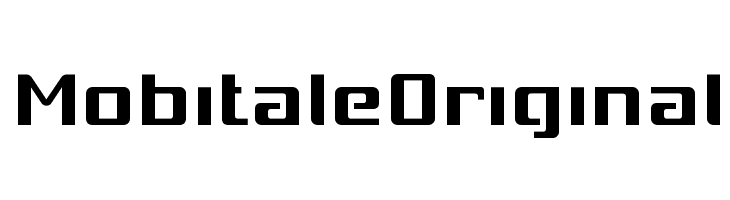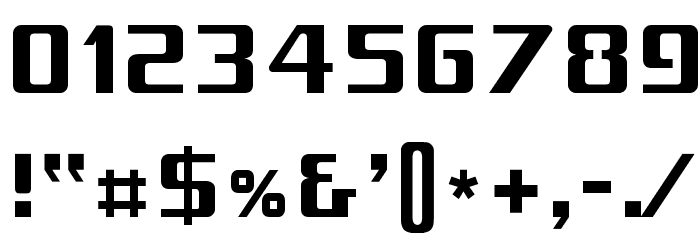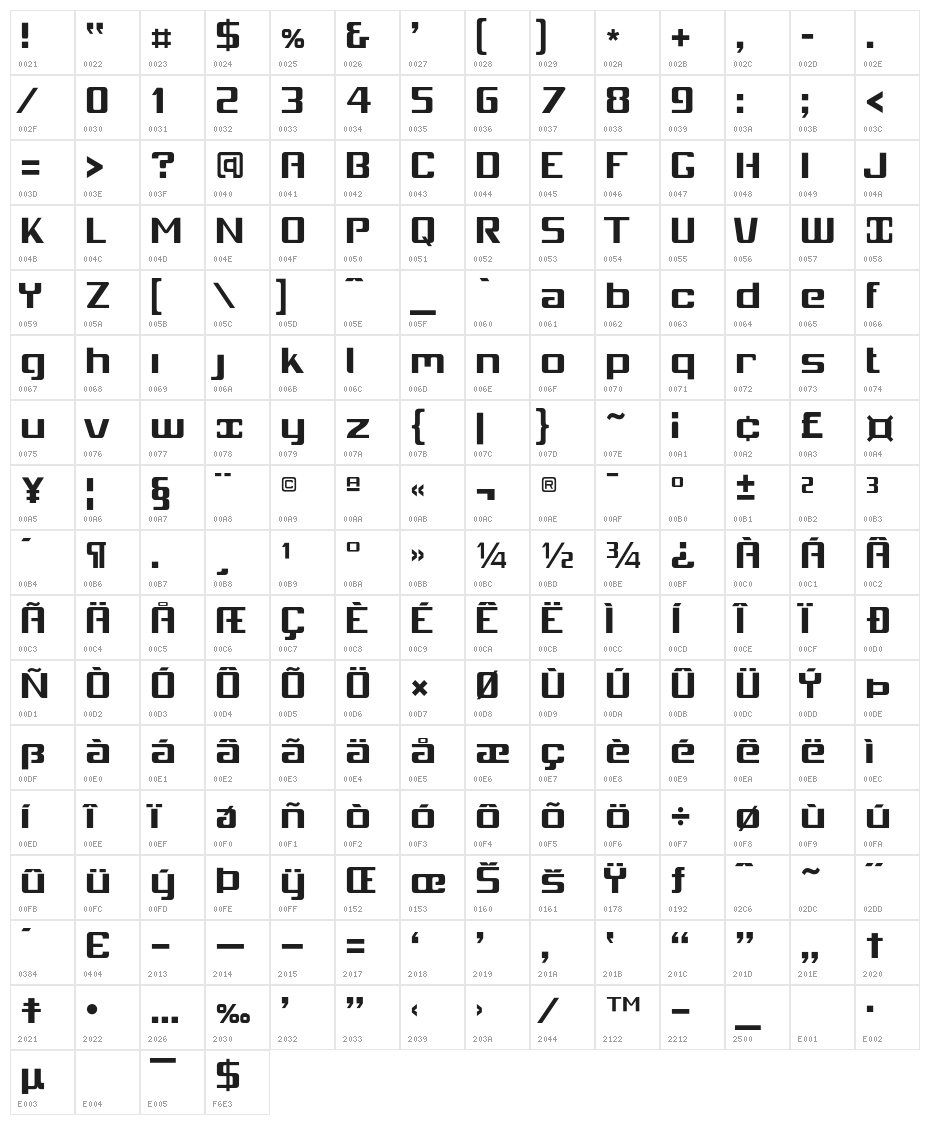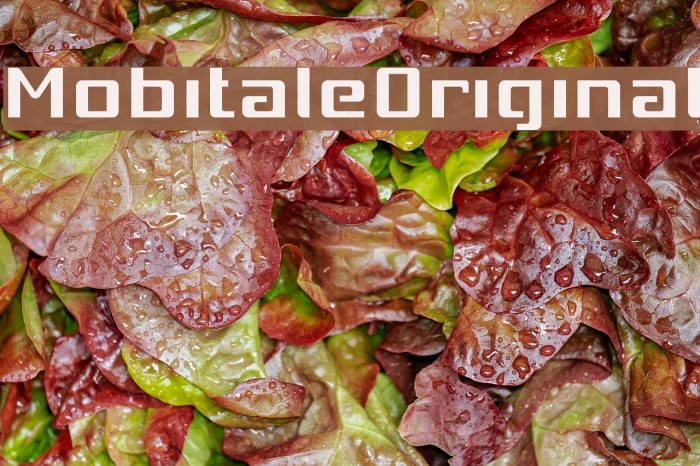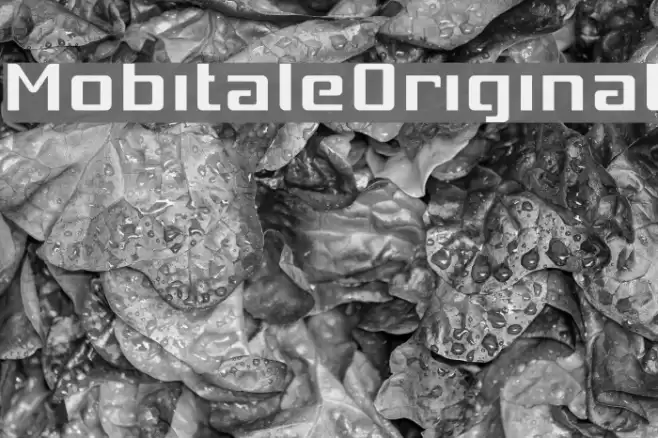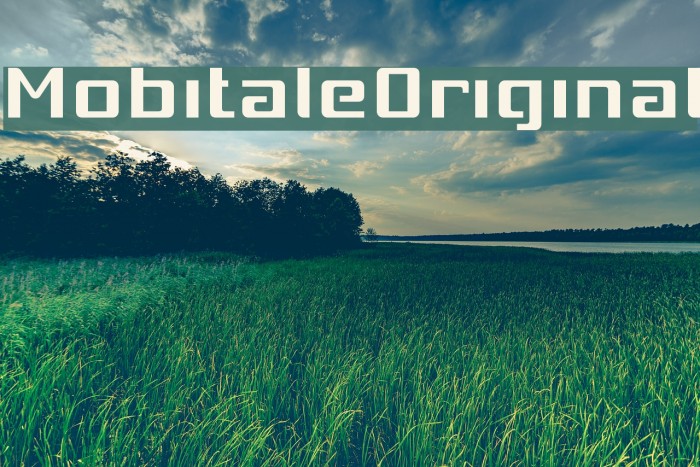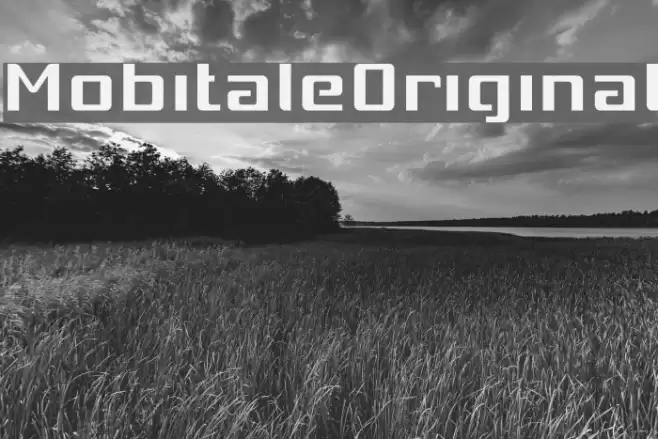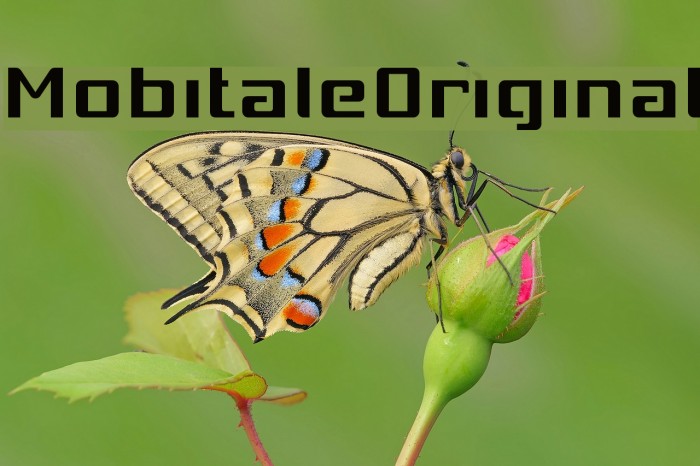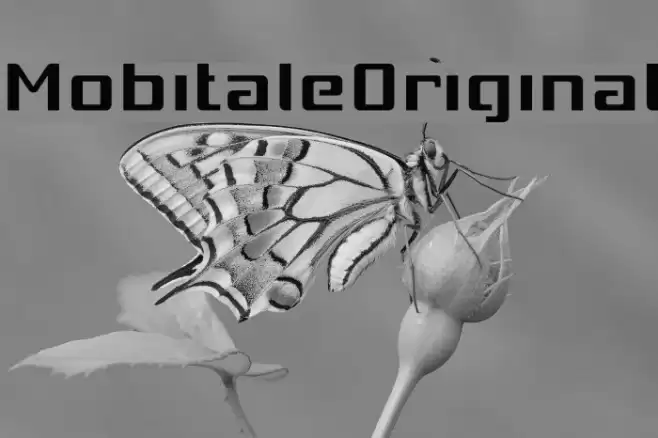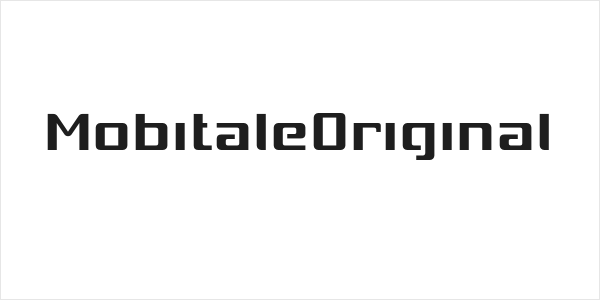
MobitaleOriginal Font
MobitaleOriginal Description
This font features a bold, geometric design with a modern and slightly futuristic aesthetic. The characters are constructed with clean, straight lines and sharp angles, giving them a strong and assertive presence. The uppercase letters are uniform in height, while the lowercase letters maintain a consistent baseline, contributing to a cohesive look. The numerals are distinct and easy to read, matching the overall style of the alphabet. Special characters are included, maintaining the same bold and structured appearance. This font is highly legible and versatile, suitable for various design applications.
Proposed ProjectsIdeal for branding, headlines, posters, and digital interfaces where a strong, modern look is desired.